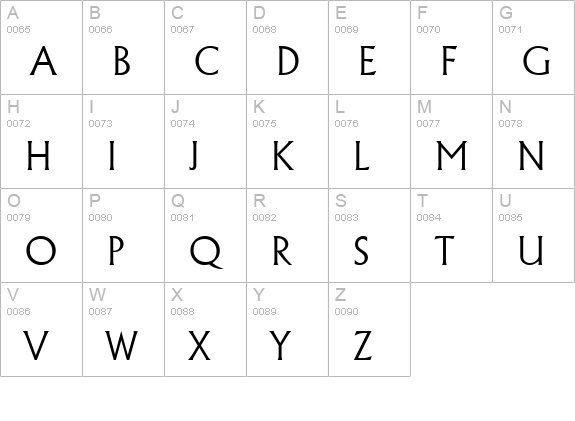
AdelonSerial-Light-Regular is a refined, elegant variant in the AdelonSerial typeface family \xE2\x80\x94 well suited to elegant body text, refined sub-headings, and luxury branding.
AdelonSerial-Light-Regular is a modern and elegant font that exudes sophistication and style. With its clean lines and balanced proportions, this typeface is perfect for a wide range of design projects, from branding to editorial. The light weight of the font gives it a delicate and refined appearance, making it ideal for conveying a sense of elegance and professionalism. One of the best things about AdelonSerial-Light-Regular is that it is completely free to download. You can easily access this beautiful font at FontsMarket.com, where you can explore a vast collection of high-quality fonts for all your design needs. Whether you're working on a logo, website, or print material, AdelonSerial-Light-Regular will add a touch of sophistication to your projects without costing you a penny. Download it today and elevate your designs with this exquisite typeface.